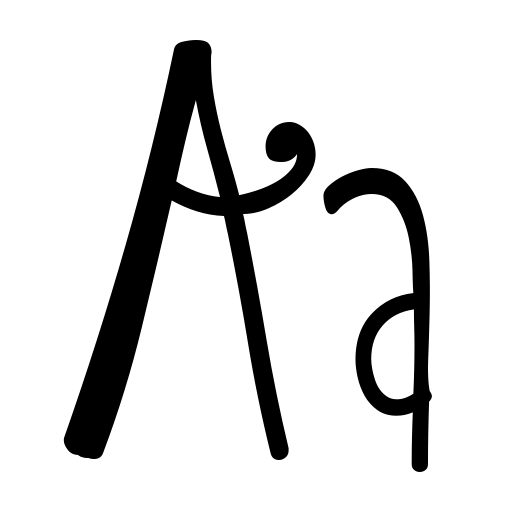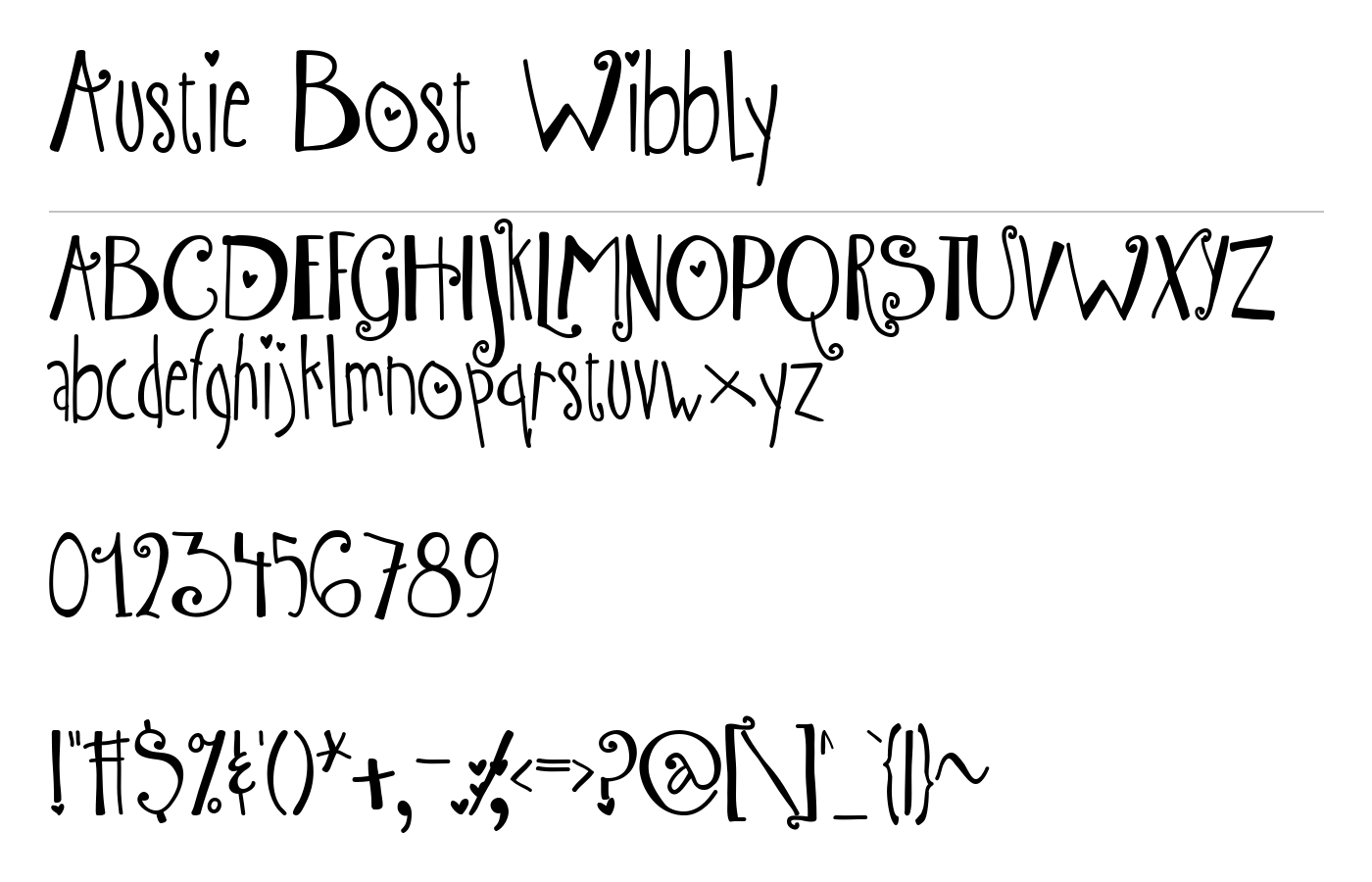
Austie Bost Wibbly is a whimsical, hand-drawn sans serif font with a playful and quirky personality, characterized by uneven strokes, heart-shaped dots, and unique swirls on certain letters. Its irregular shapes and fun details make it ideal for creative projects like children's books, party invitations, and casual branding where a lively, informal tone is desired. This font adds charm and a touch of personality to headlines and decorative uses, bringing an engaging and friendly vibe to any design.
Austie Bost Wibbly Font
About Austie Bost Wibbly Font
| Font family | Austie Bost Wibbly Font |
| Designer | Austin Owens |